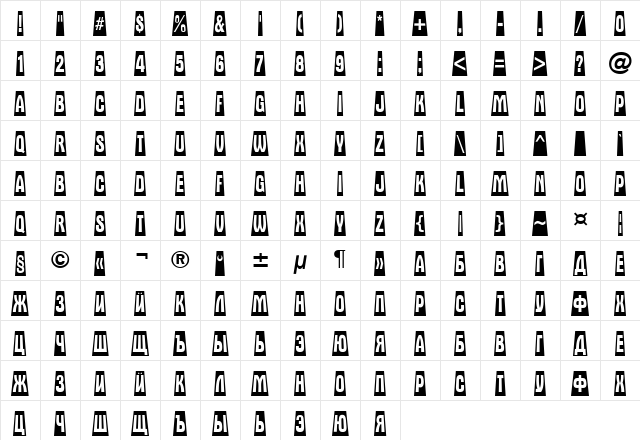
a_AlternaTitulCmDvBk Demi Free Font
a_AlternaTitulCmDvBk Demi
Style: Demi
Design Context for a_AlternaTitulCmDvBk
a_AlternaTitulCmDvBk is a composed and adaptable typeface that performs quietly and consistently across a wide range of design contexts.